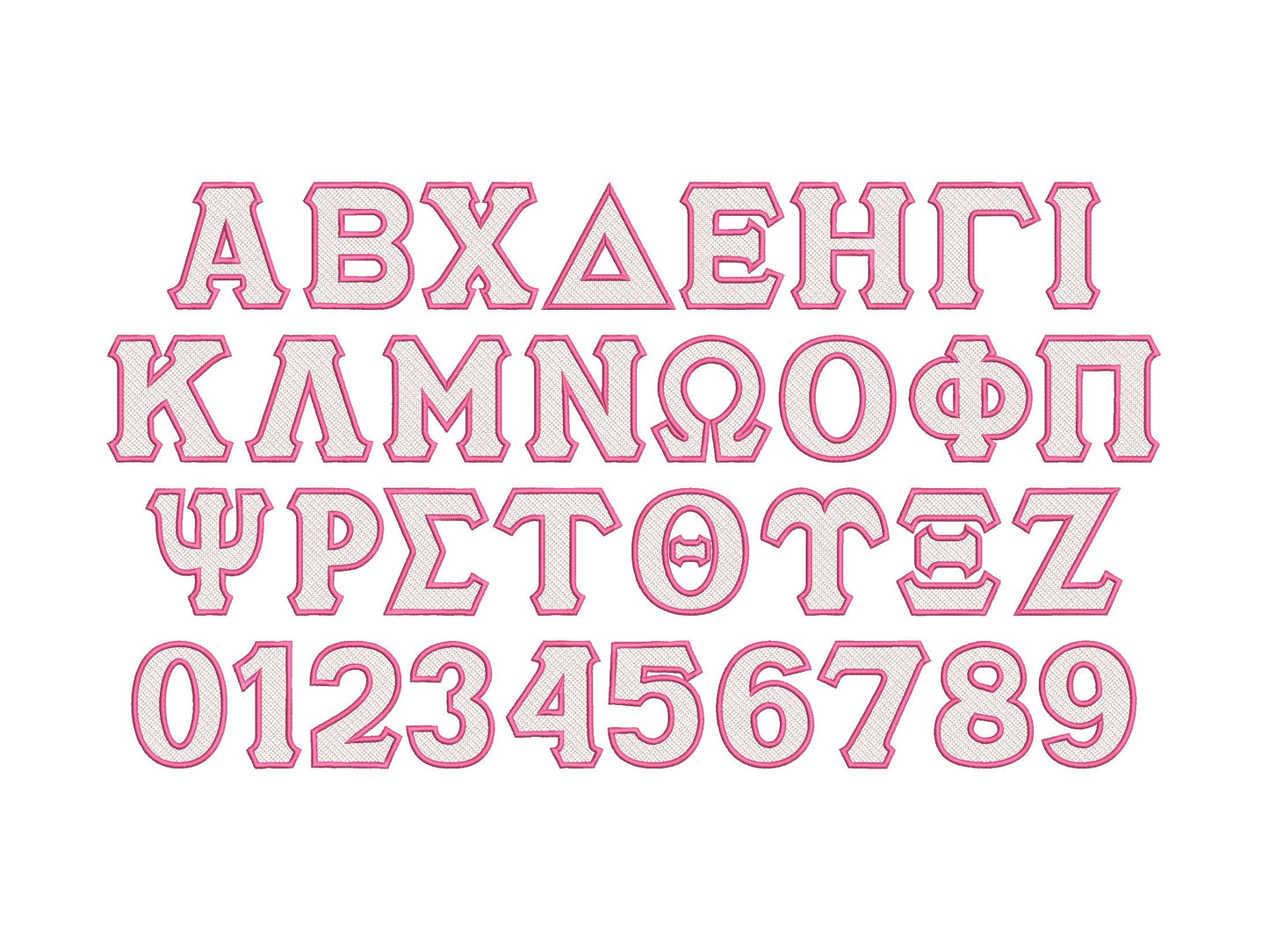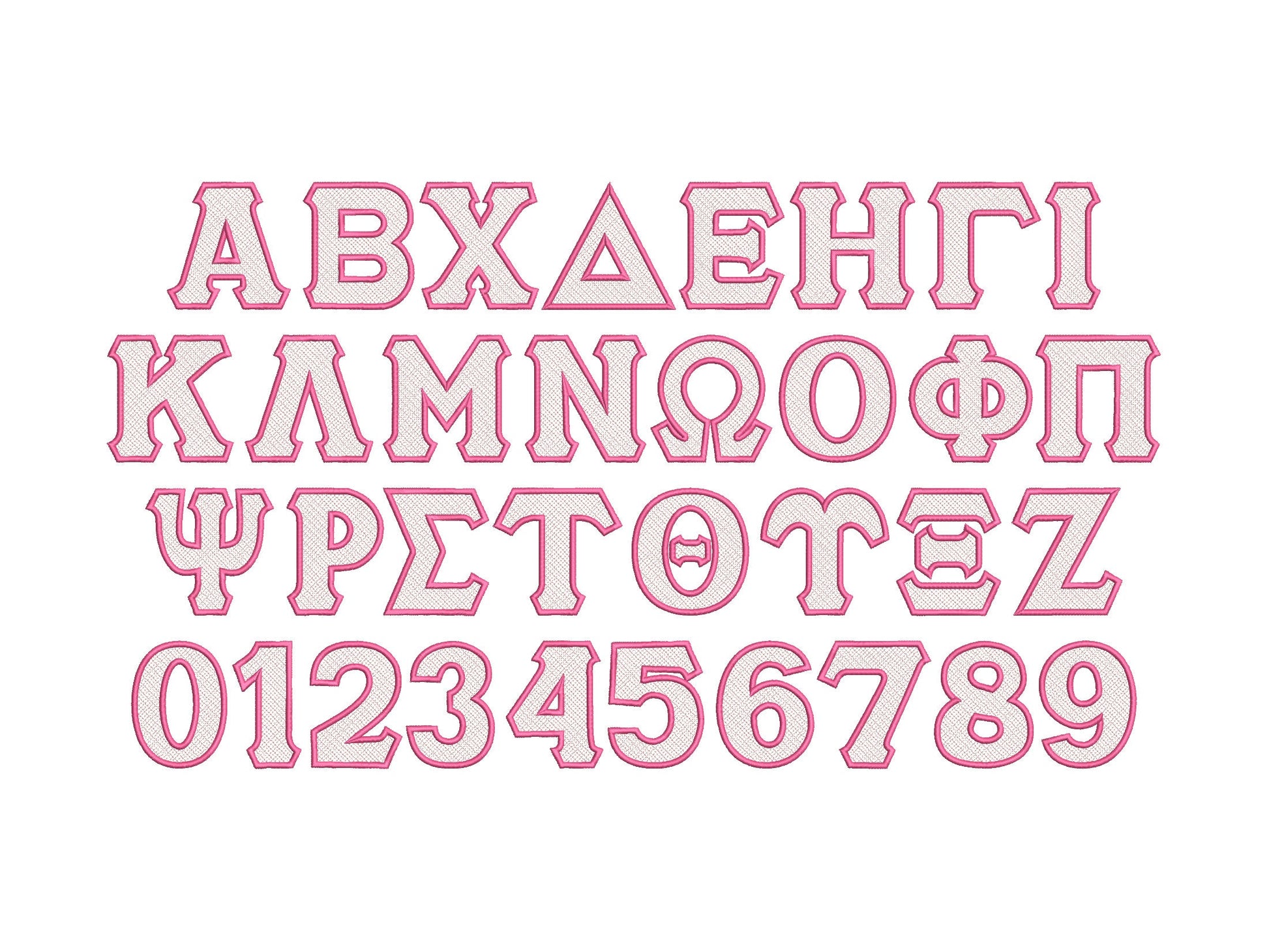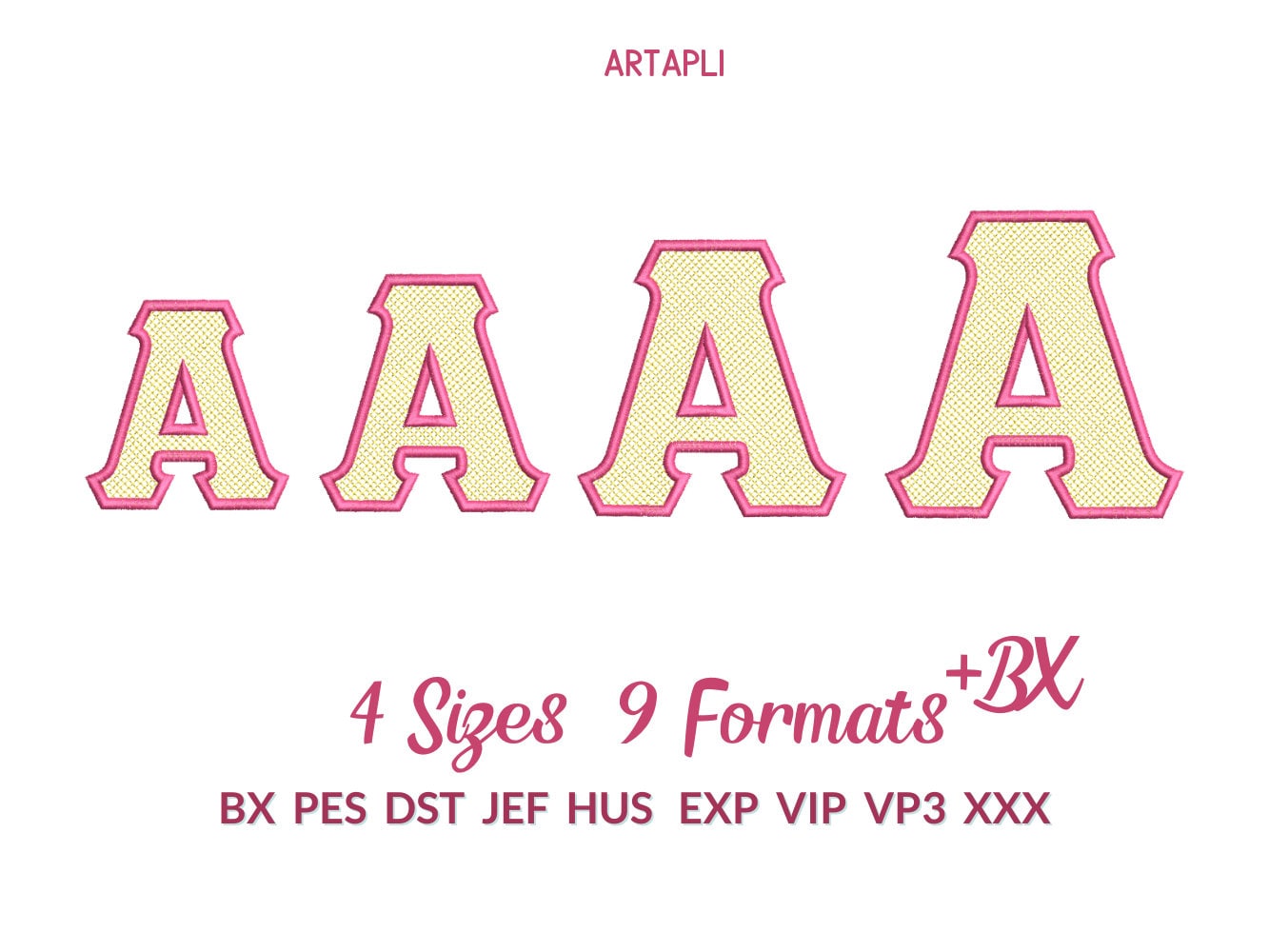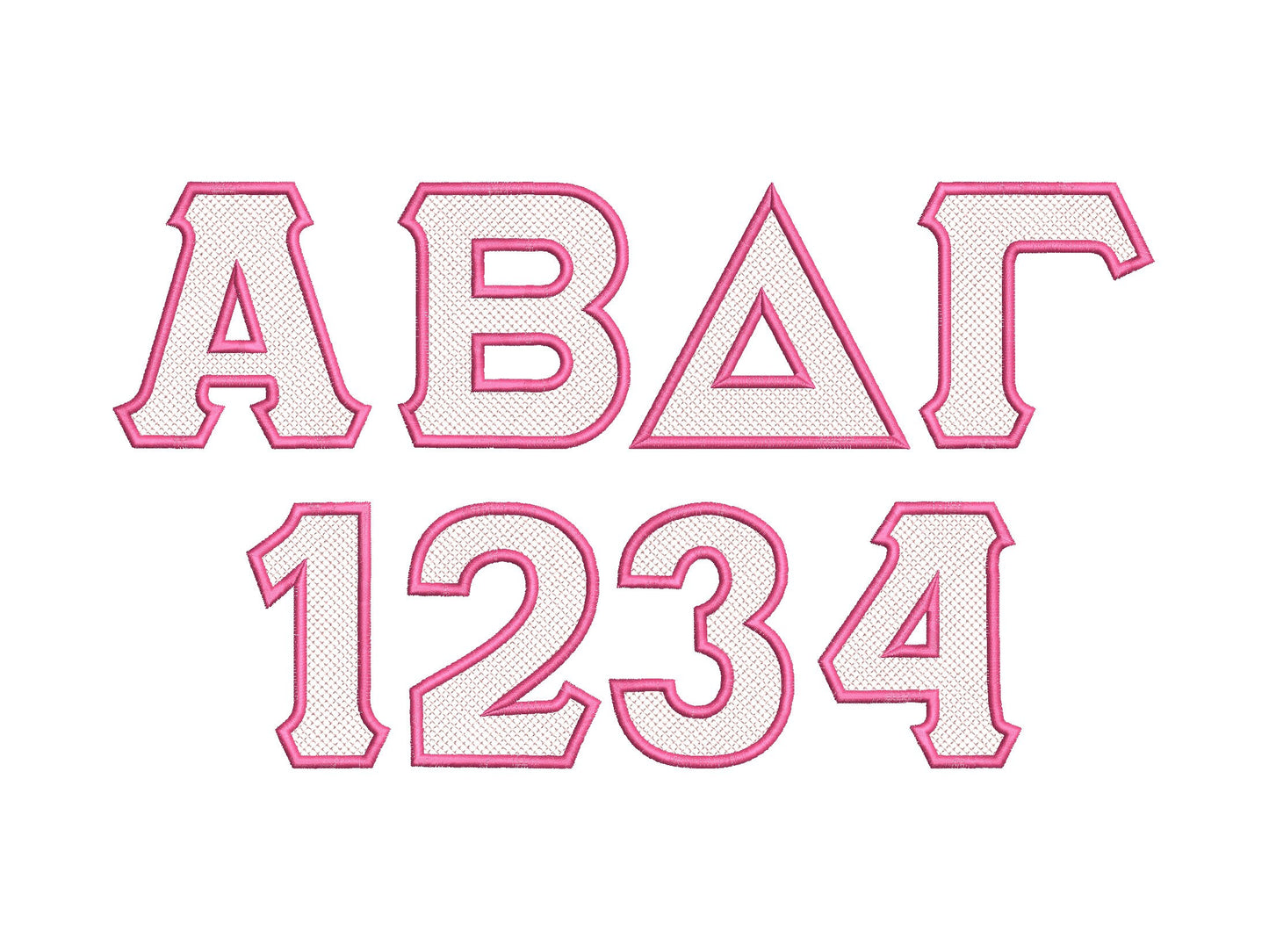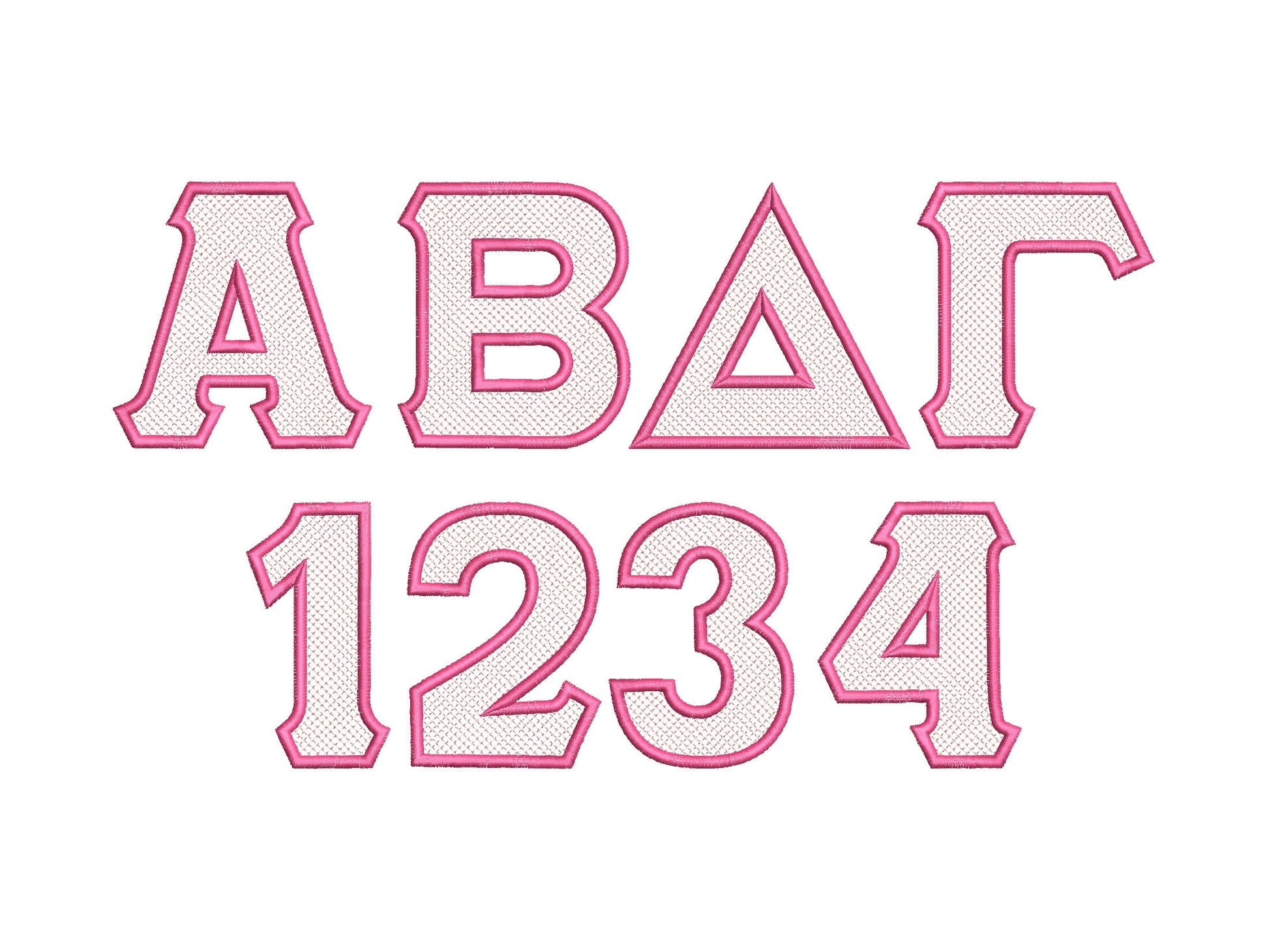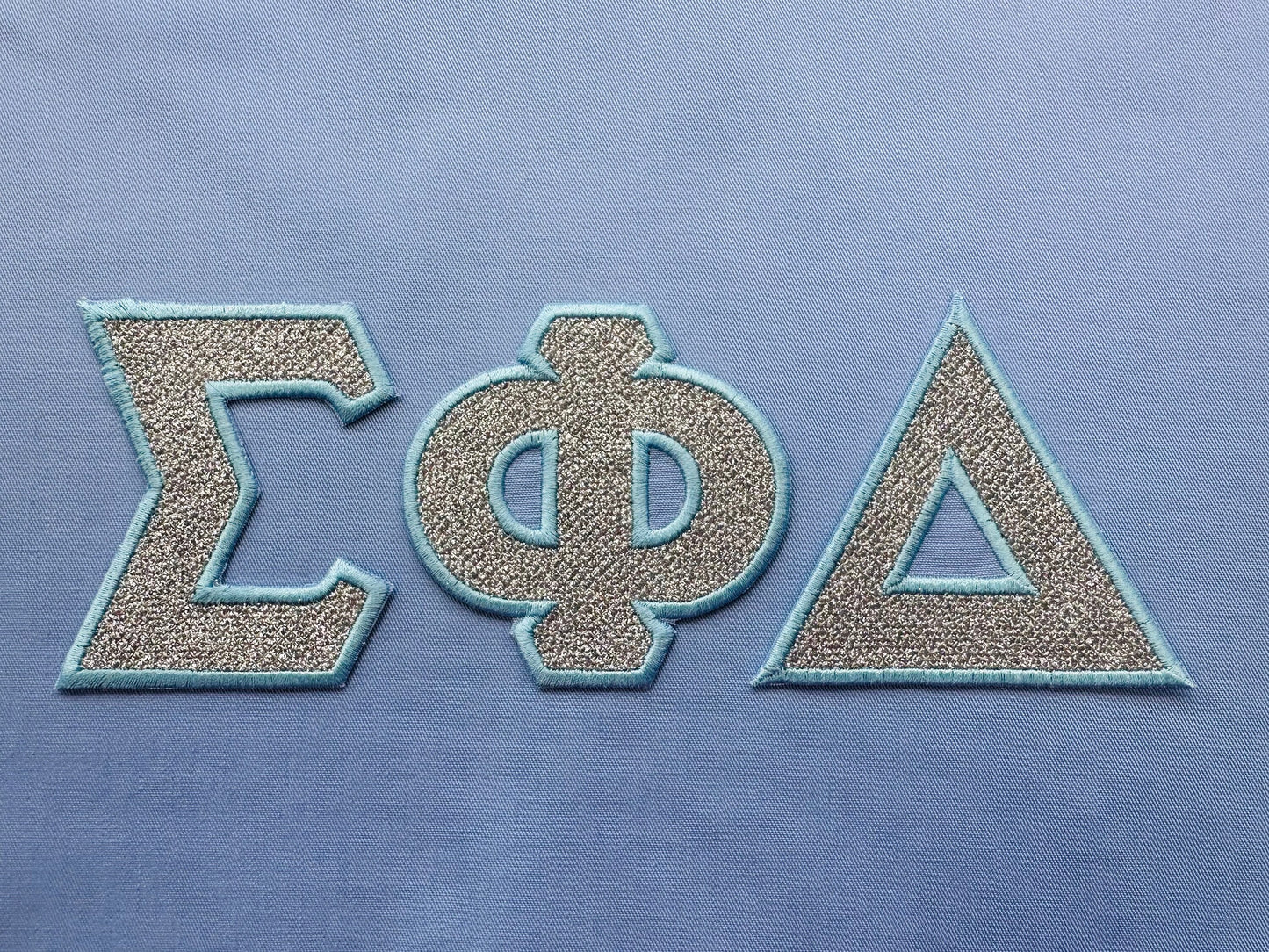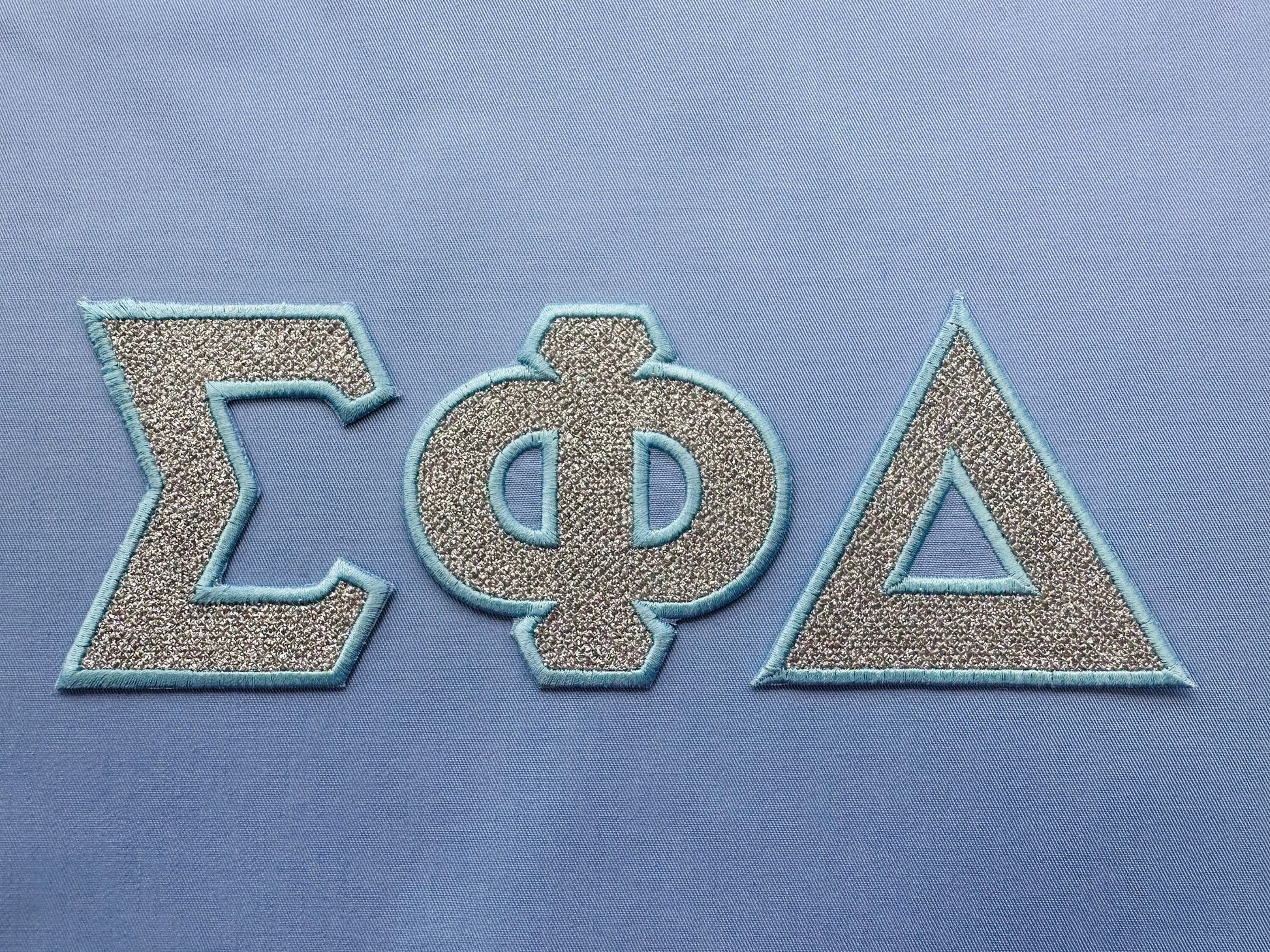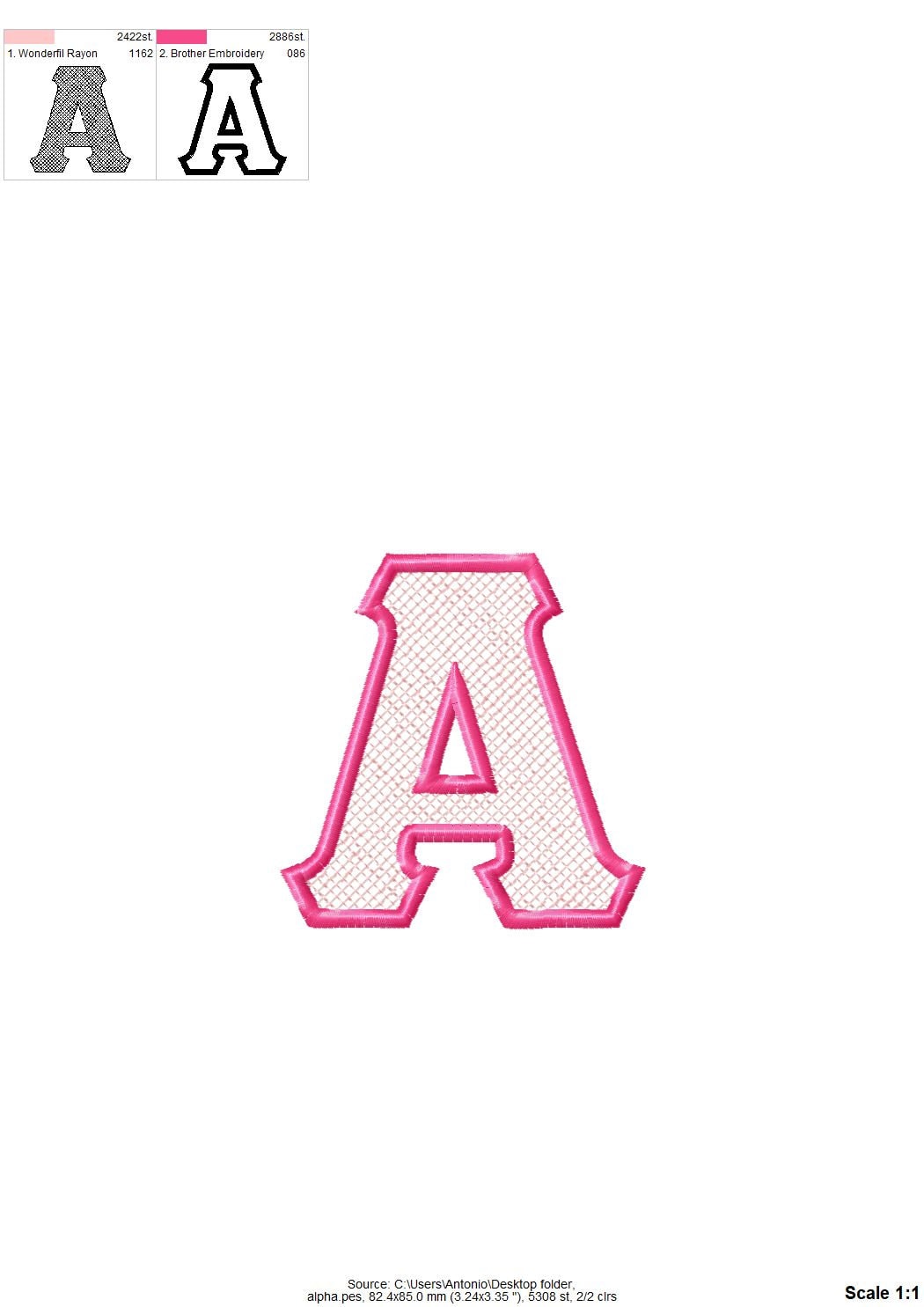
Or click to open the linkGreek letters with a light diamond crisscross pattern and a satin stitch outline. Stitch as is or add glitter vinyl for sorority and fraternity shirts and bags.
All 24 Greek letters plus numbers 0 to 9, in four sizes: 3, 3.3, 3.9 and 4.3 inches. Light stitch where the fabric shows through, framed by a satin outline.